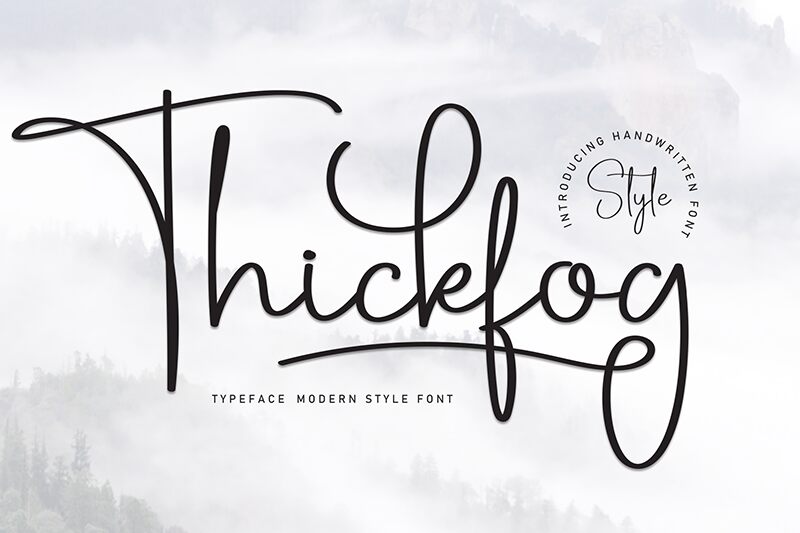
Thickfog
Thickfog font by Scratchones is a free handwritten font with a light weight and a captivating signature style. It has all it takes to make every single word look poetic, relaxed, and truly memorable. The dance of its glyps can take your designs to the next level whether you work on personal or professional projects.
The elegant use cases of Thickfog are logos, badges, stamps, signages, branding projects. The cursive title text on posters, book covers (especially novels) and magazine covers will also impress readers and convince them to read further. The script is also great for product packaging design (labels), invitations, greeting cards etc.